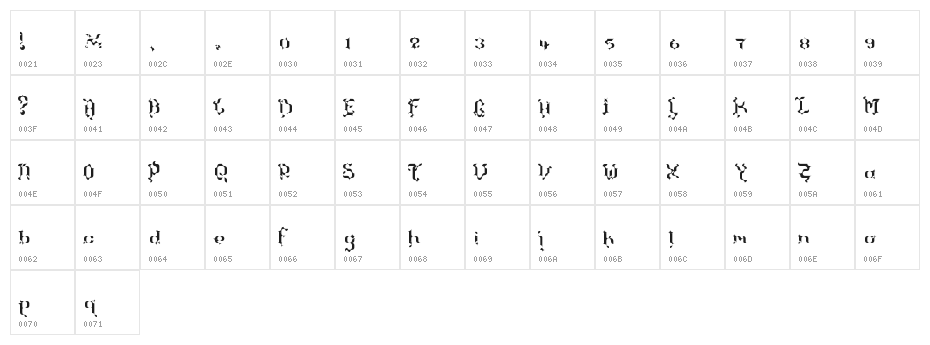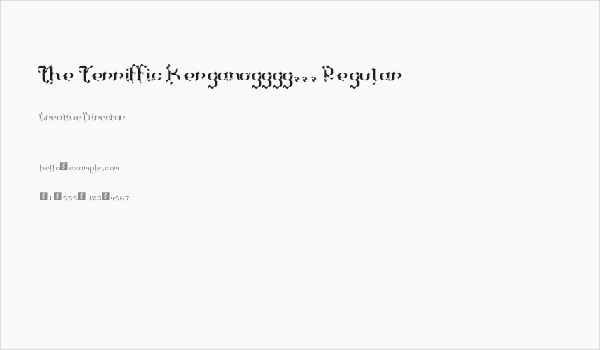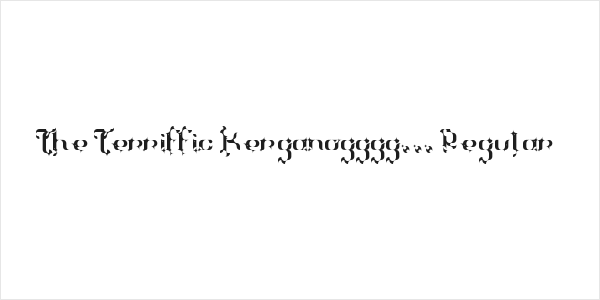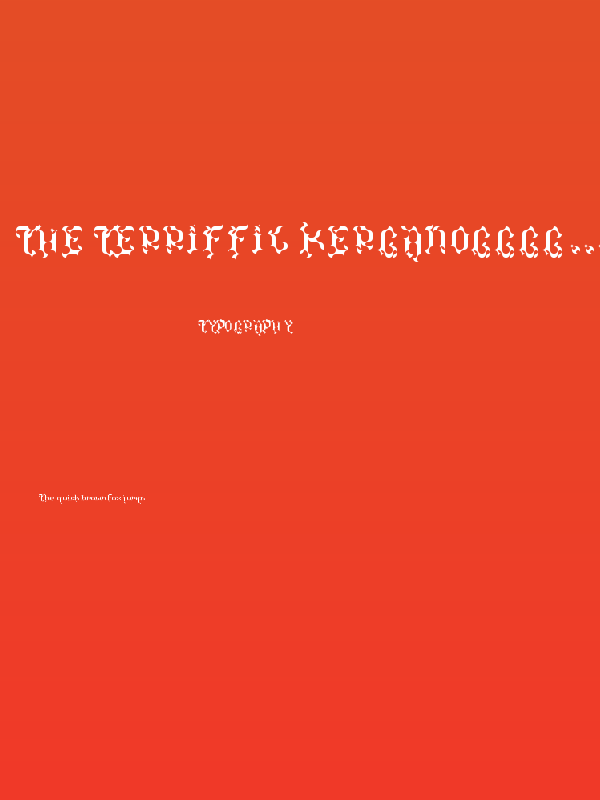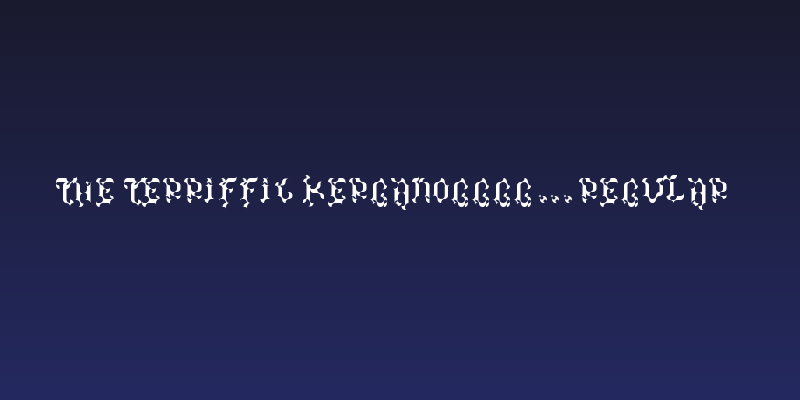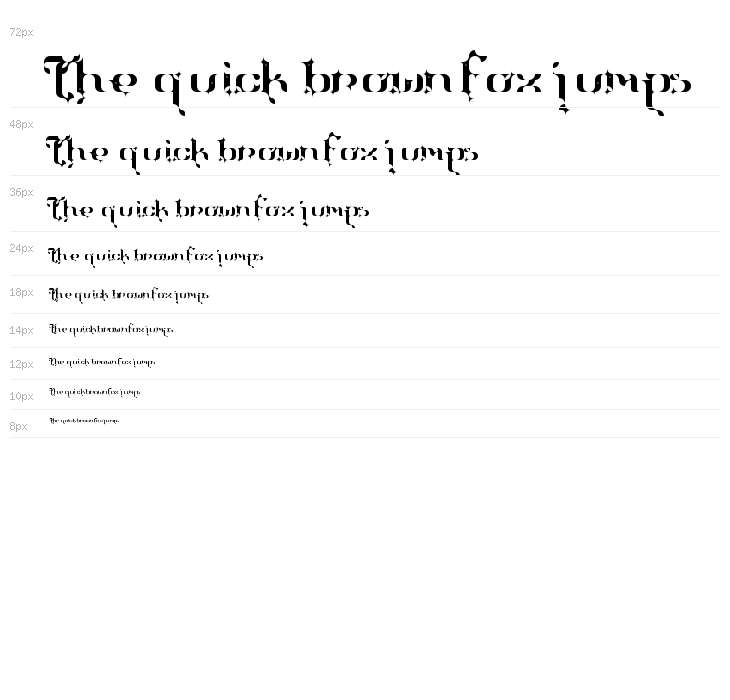
The Terriffic Kerganogggg... Regular Font
The Terriffic Kerganogggg... Regular Description
This font features a distinctive and intricate design, reminiscent of traditional Blackletter styles with a modern twist. The characters are bold and ornate, with sharp angles and decorative elements that give it a unique, almost gothic appearance. The uppercase letters are particularly elaborate, while the lowercase letters maintain the same stylistic elements but with slightly less complexity. The numerals and special characters follow the same design principles, ensuring a cohesive look across all glyphs. This font is ideal for projects that require a dramatic and eye-catching typeface.
| Overall Style | Gothic, Decorative |
| Proposed Projects | Ideal for use in branding, posters, album covers, or any project needing a dramatic, gothic aesthetic. |